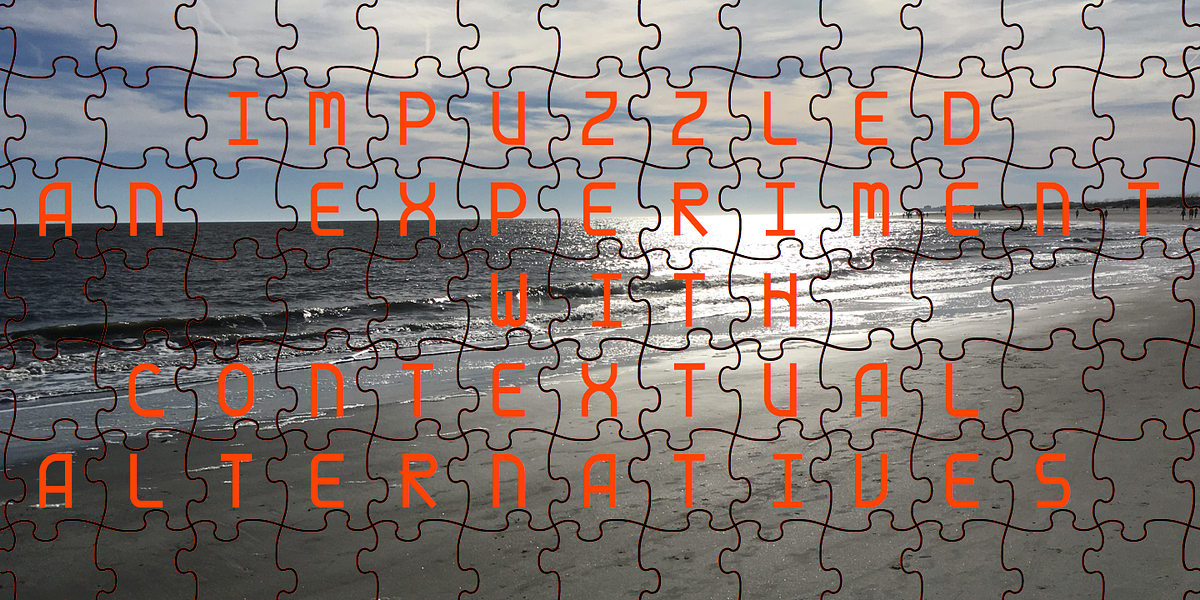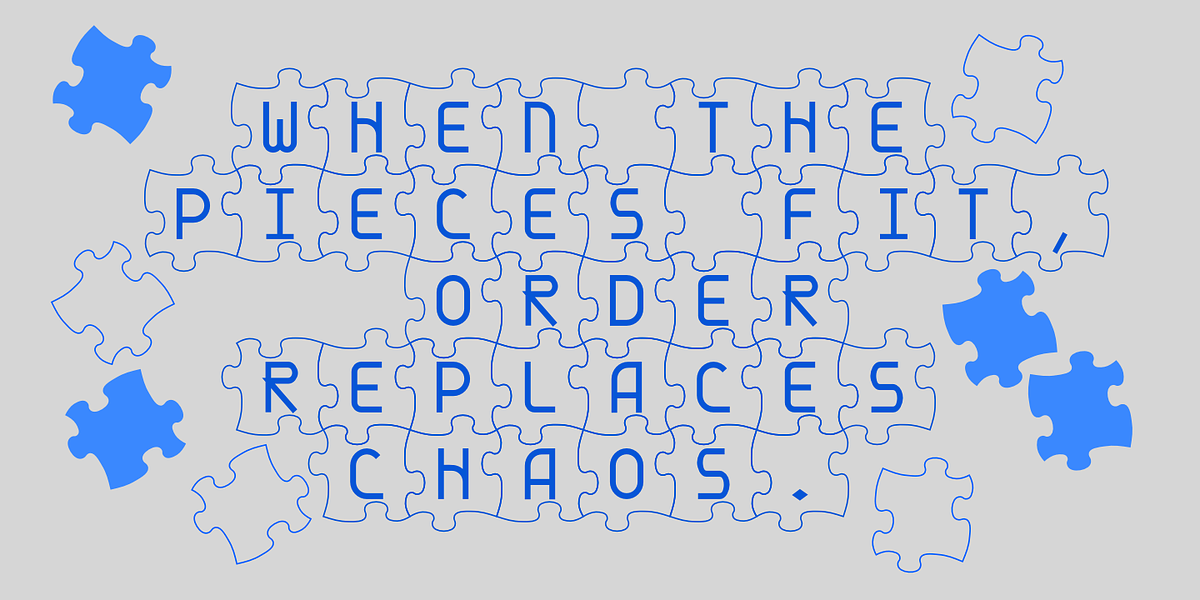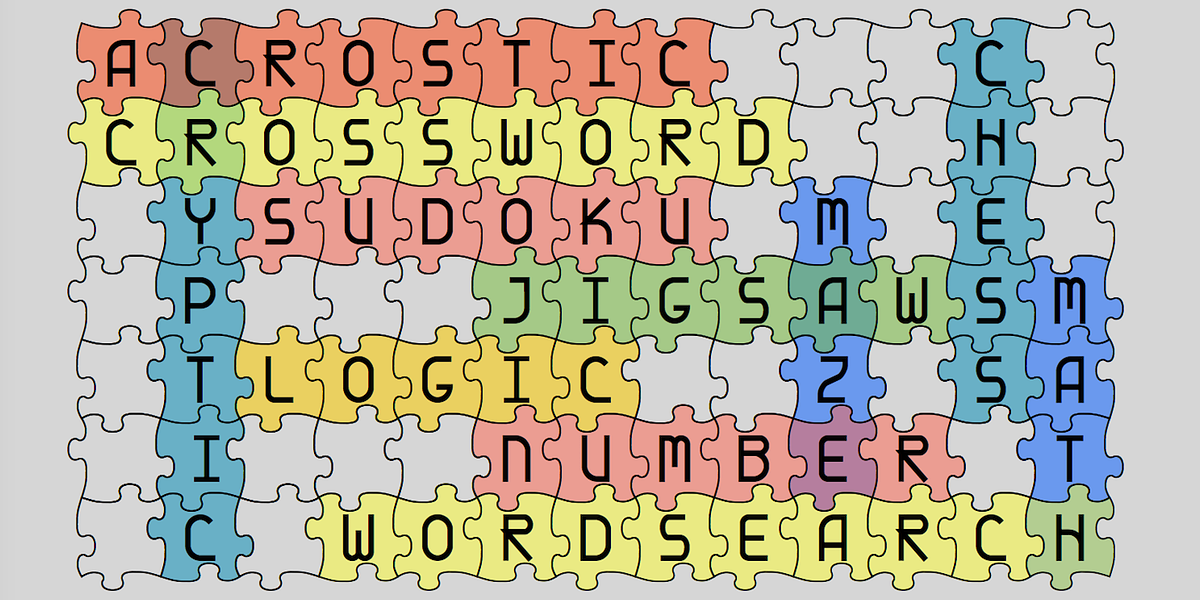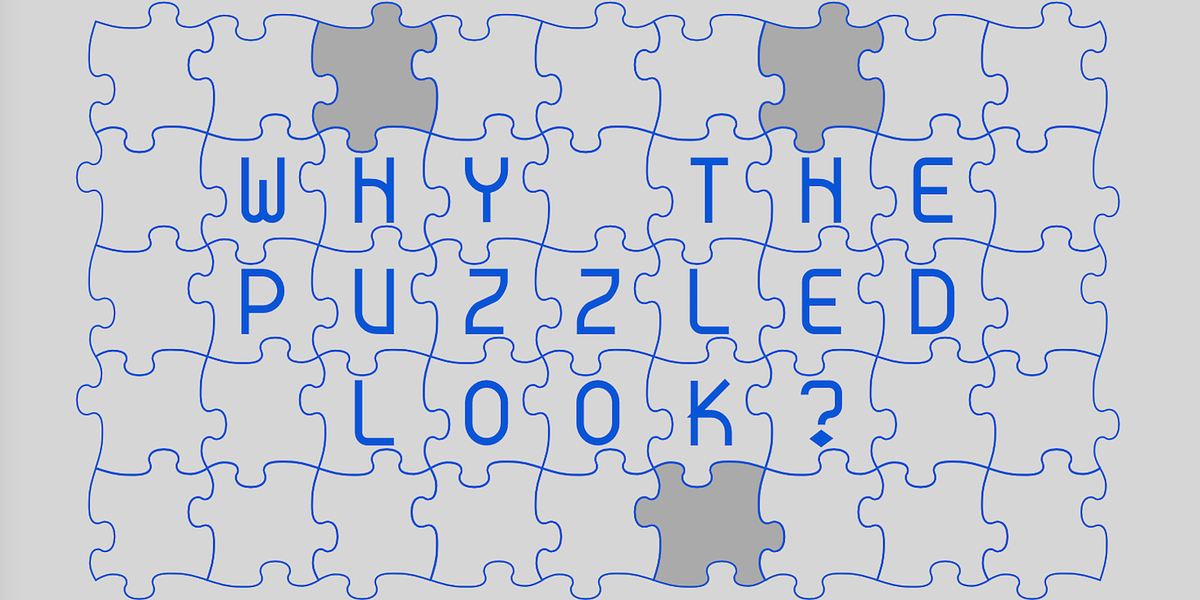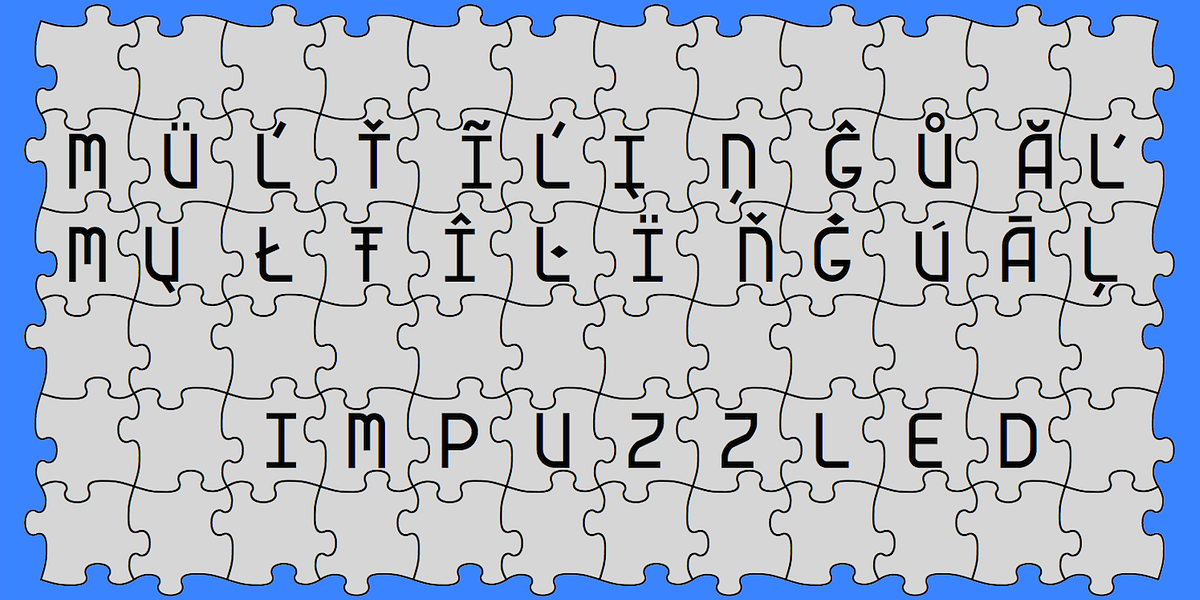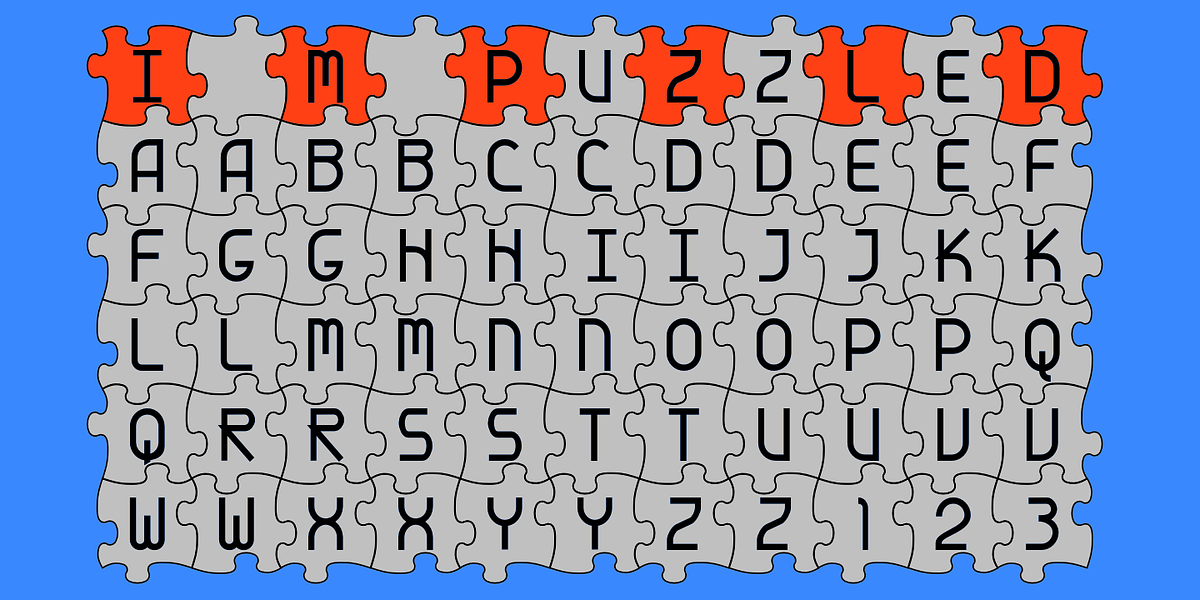
IMPuzzeled
IMPuzzled is a novelty dingbat font designed as interlocking puzzle pieces. The font features two sets of characters that can be combined to create a tessellating pattern. An additional 'empty' piece allows for spacing within the design. A solid style is included for layering effects.